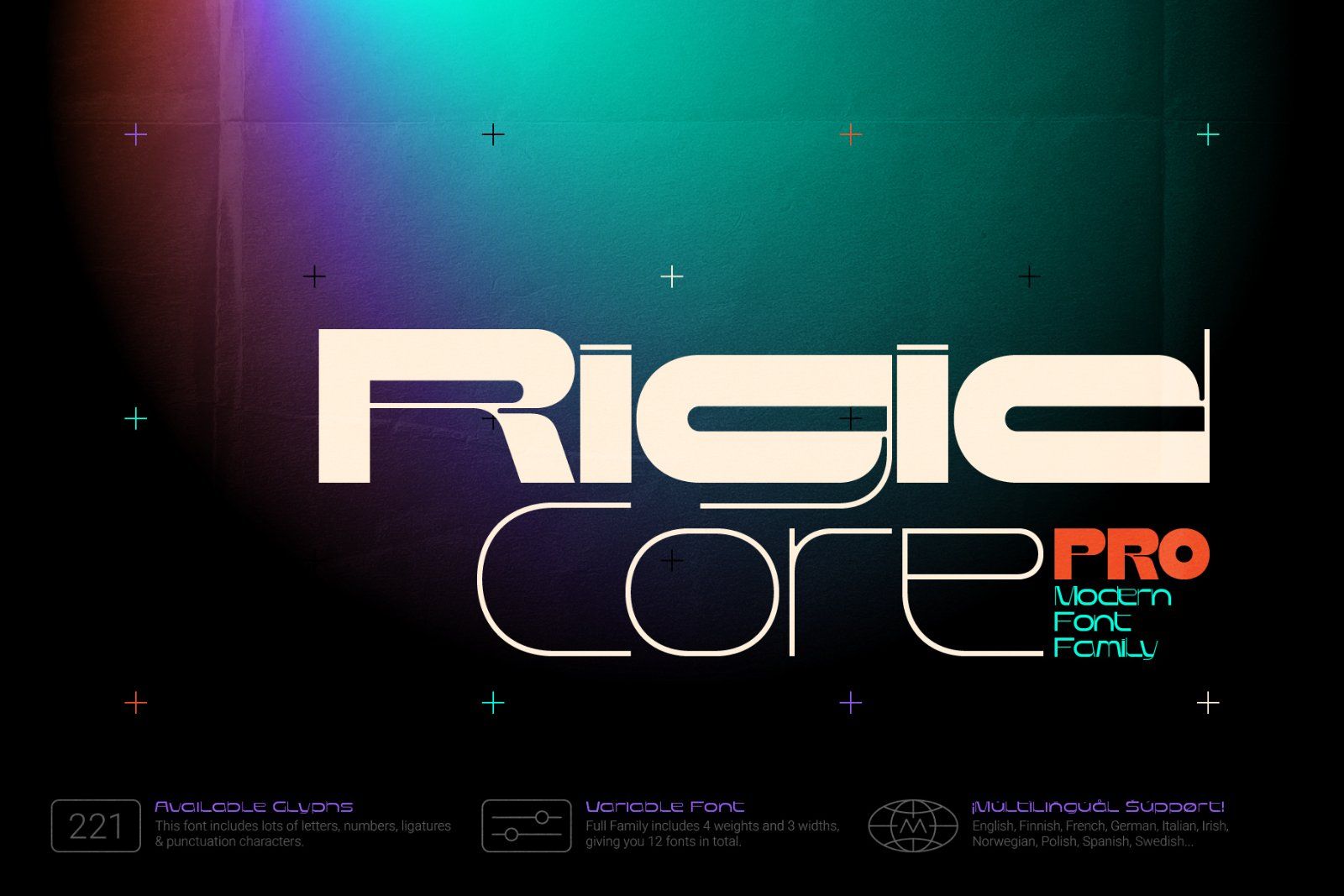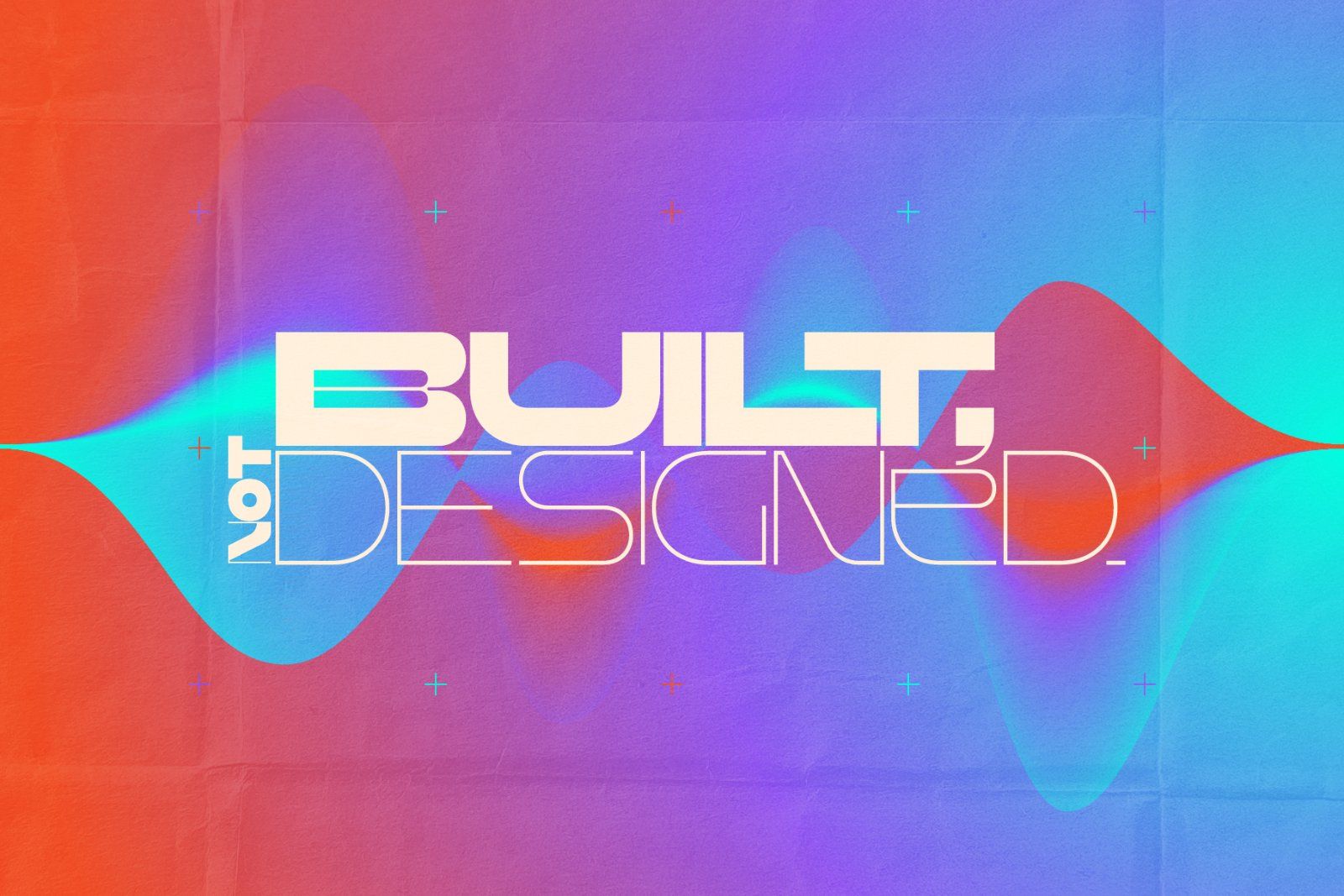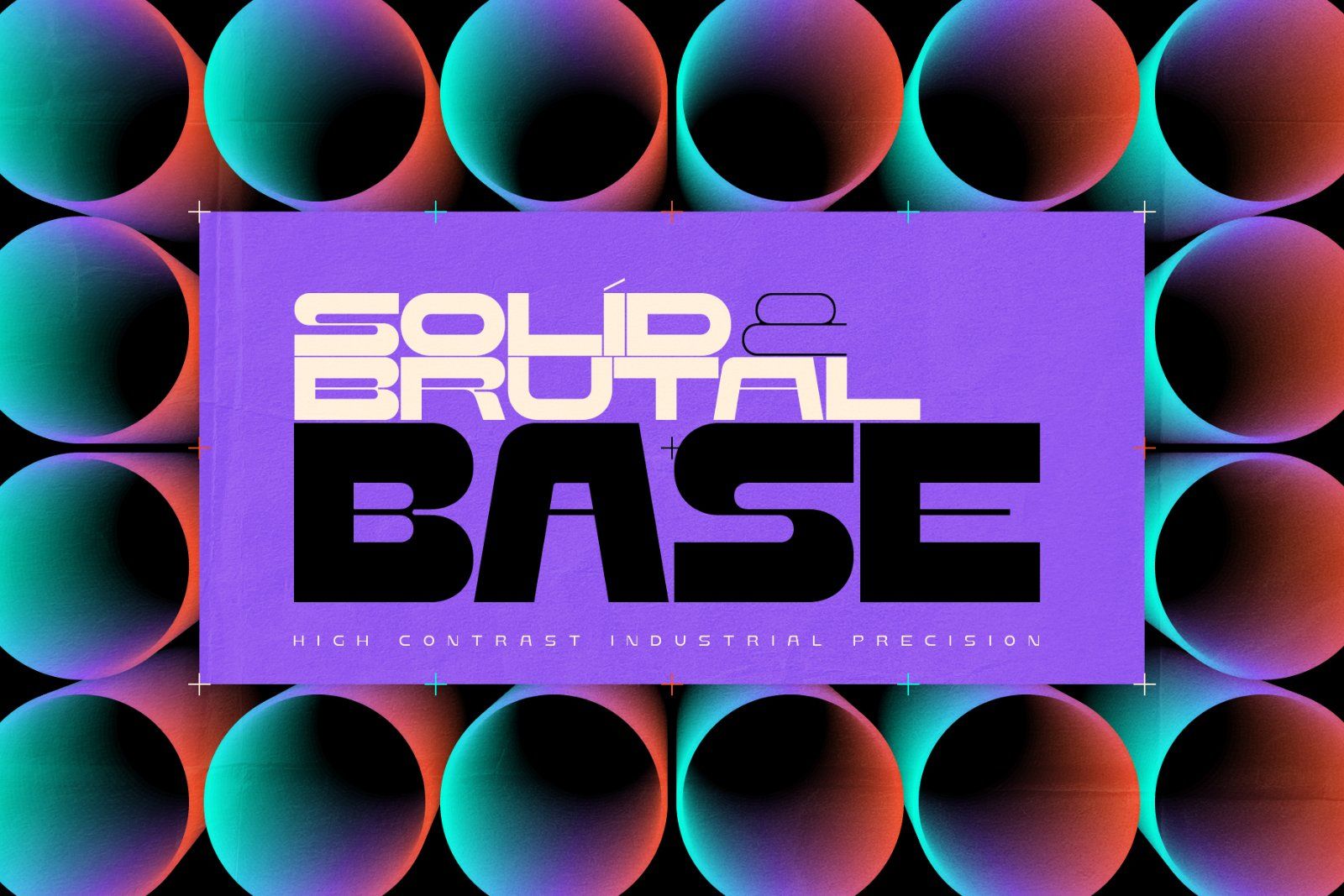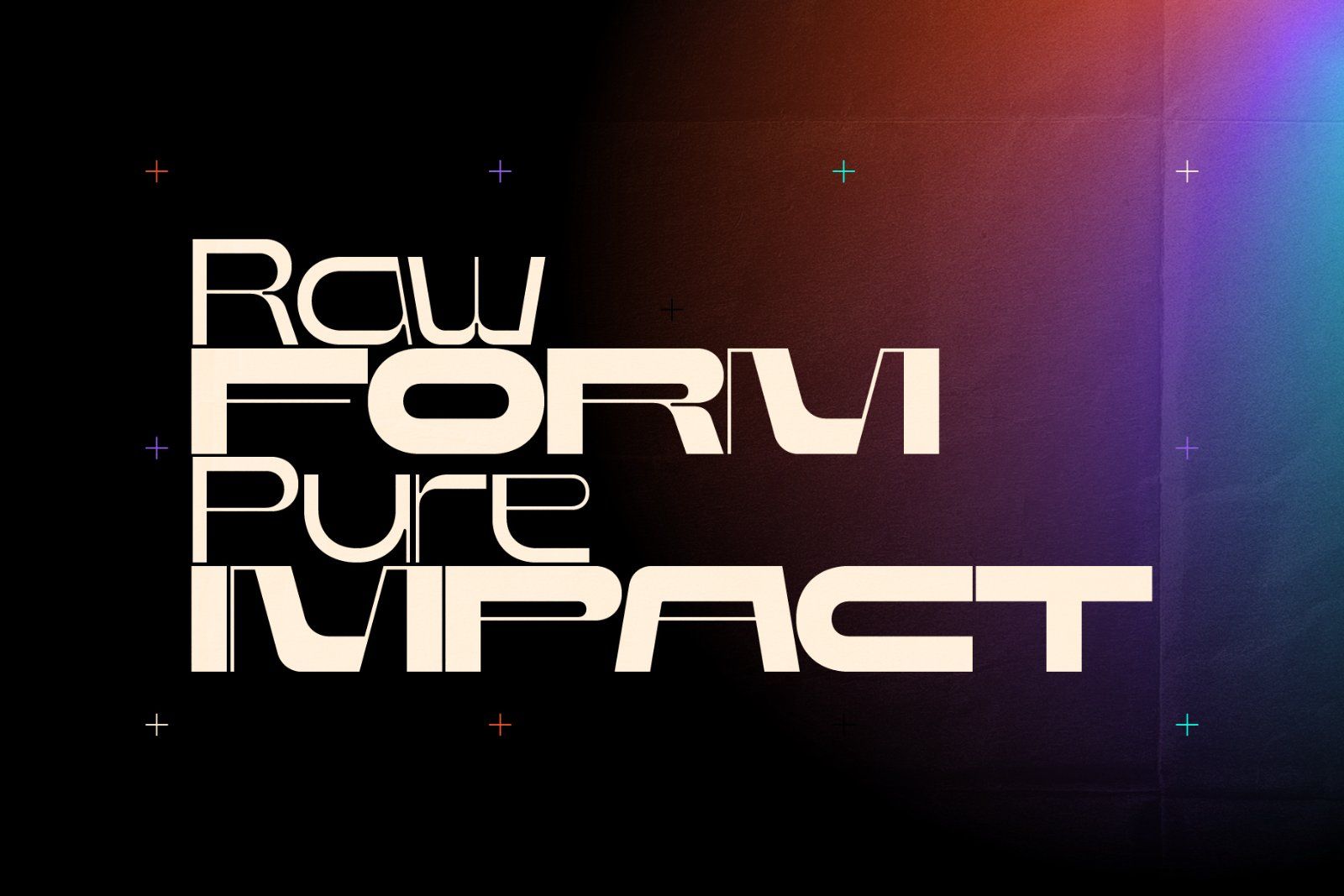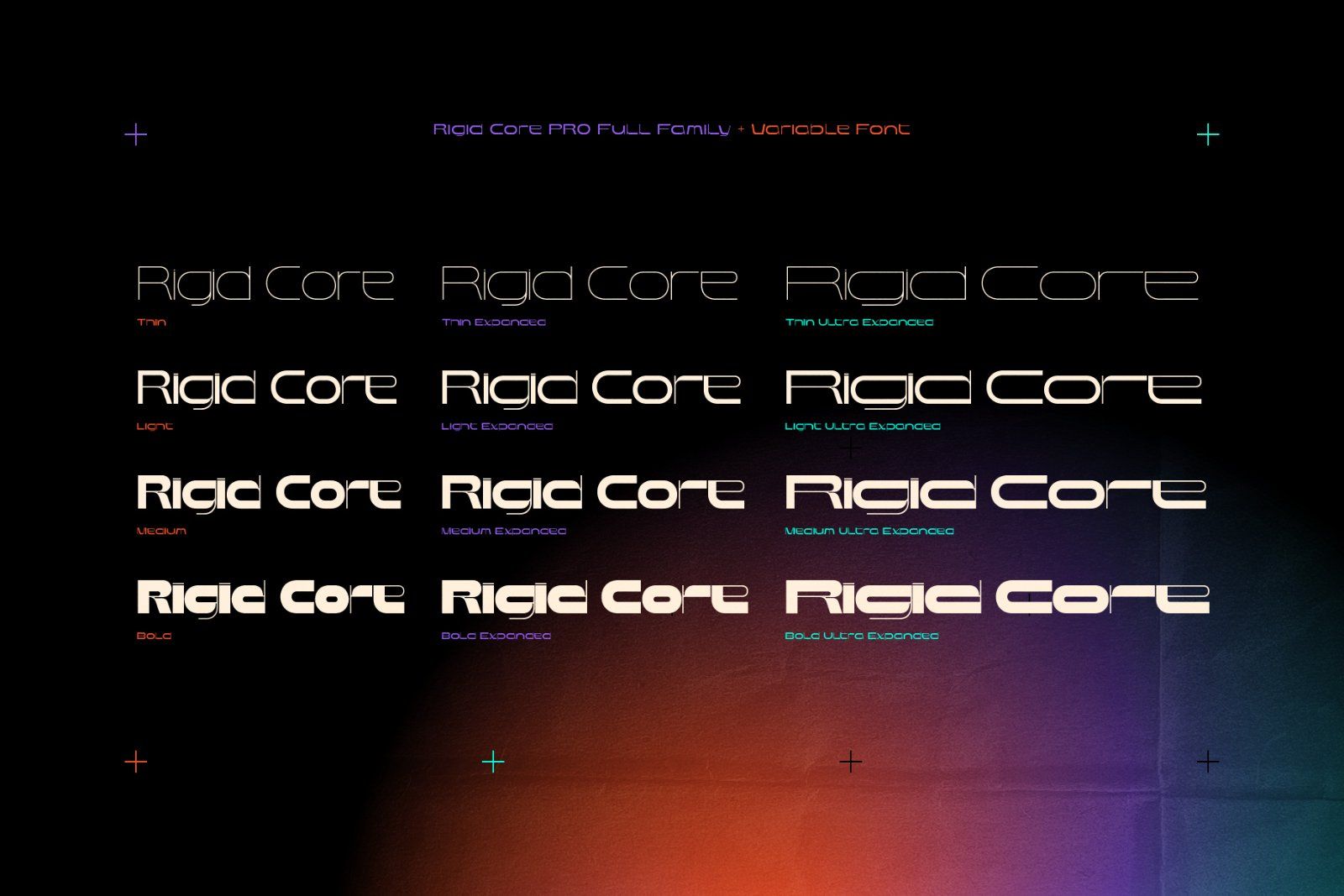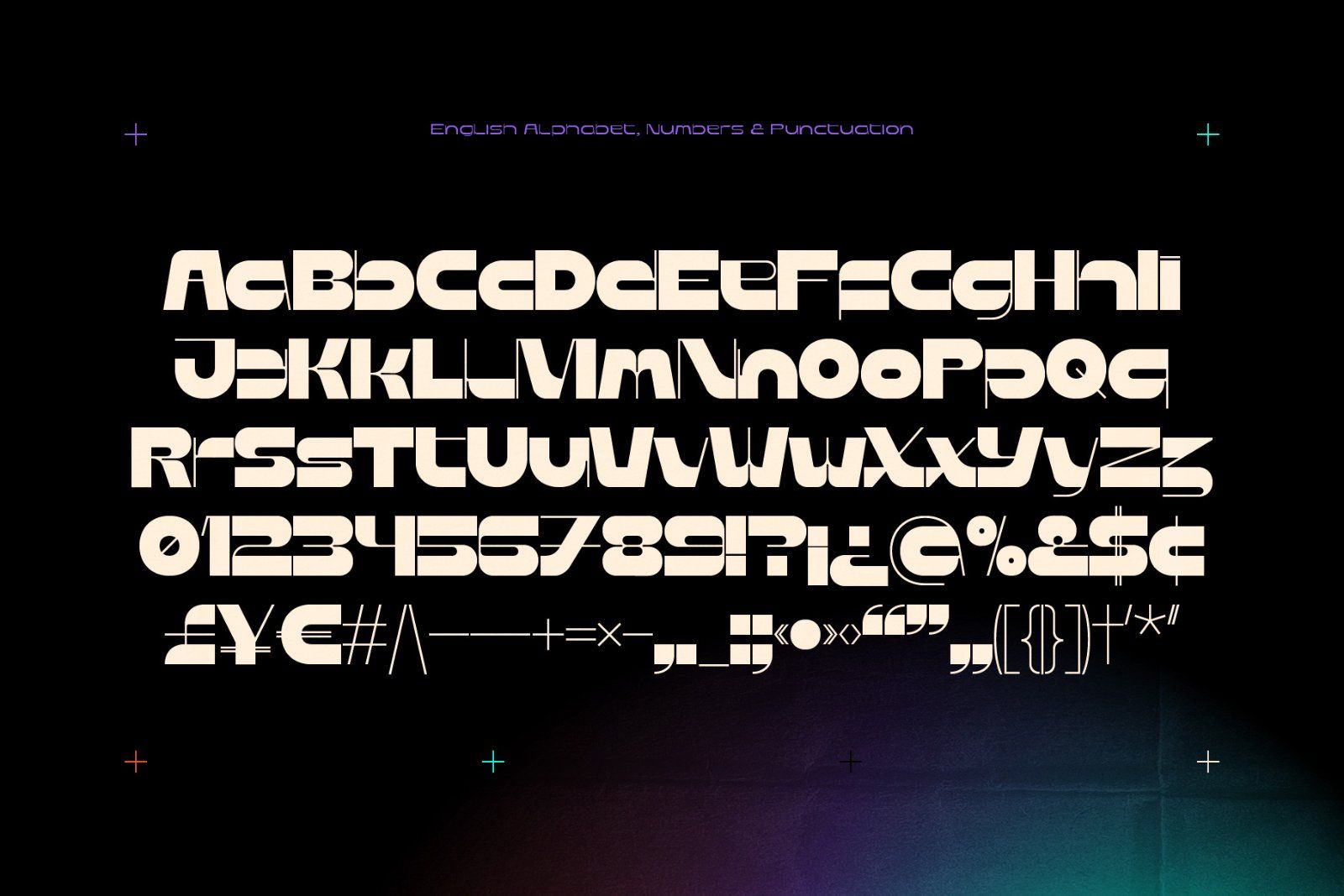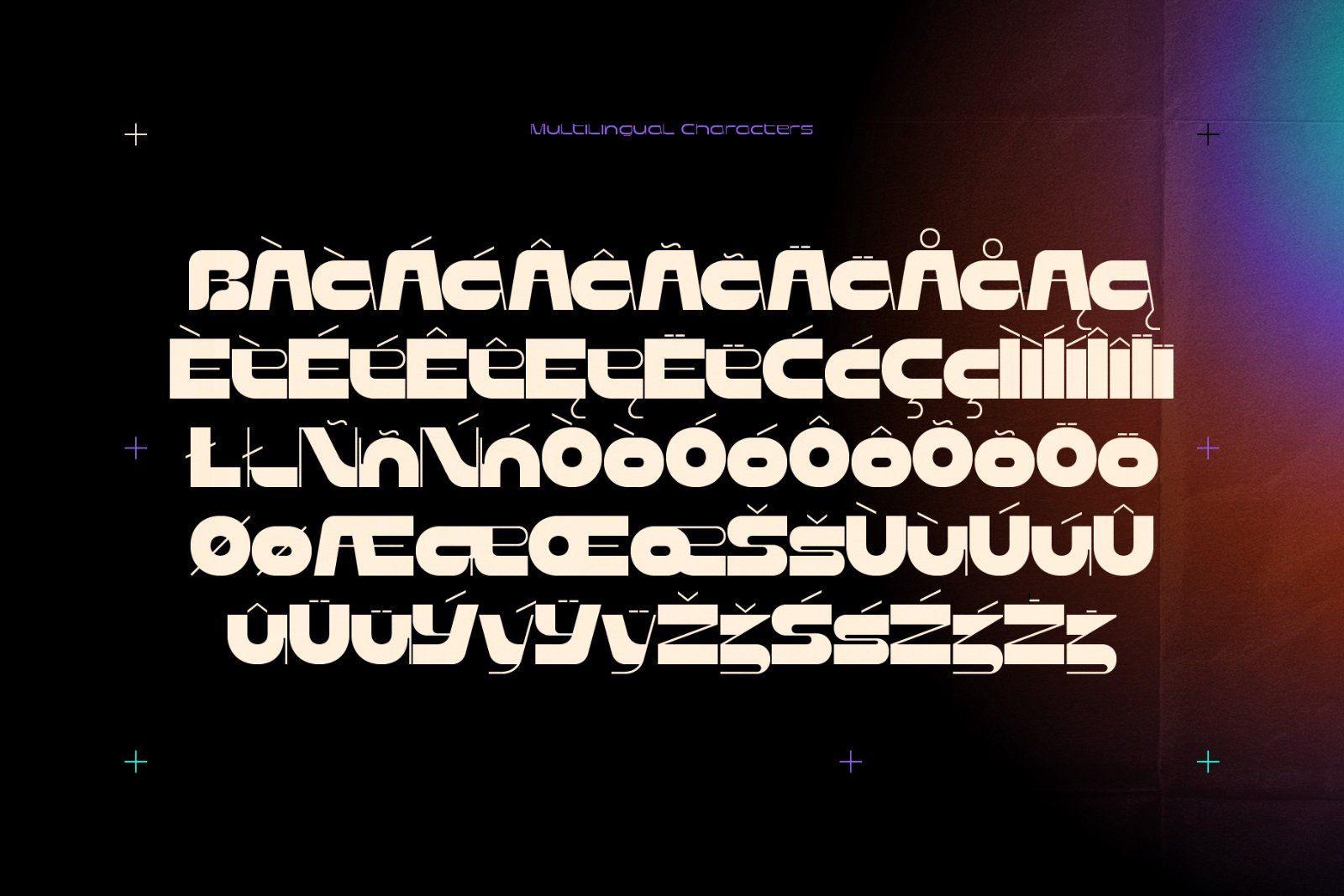
Meet a powerful modern grotesque font — Rigid Core PRO. Blending raw brutalist geometry with a fully responsive variable format, this font seamlessly transitions from sleek thin to a massive, ultra-expanded bold. Perfect for high-contrast branding, editorial layouts, and cutting-edge web designs.
Rigid Core PRO family includes 4 weights and 3 widths, giving you 12 fonts in total, plus 1 variable font containing all weights and widths in a single file.